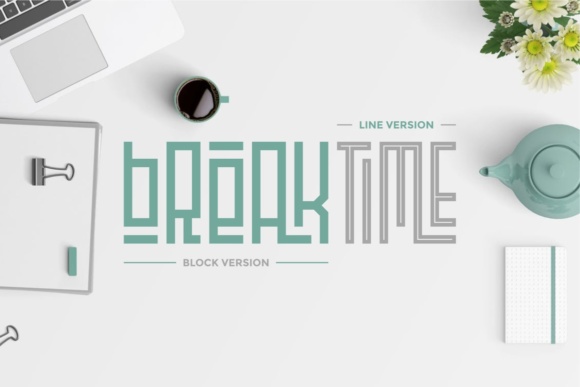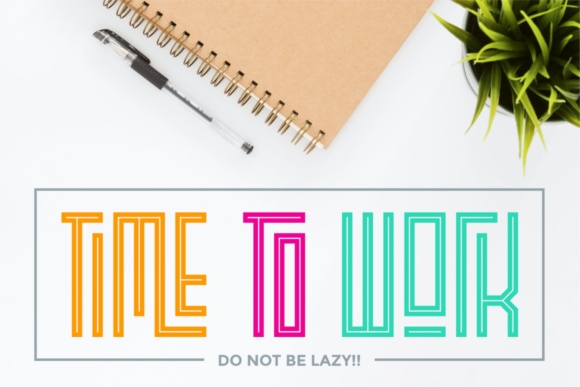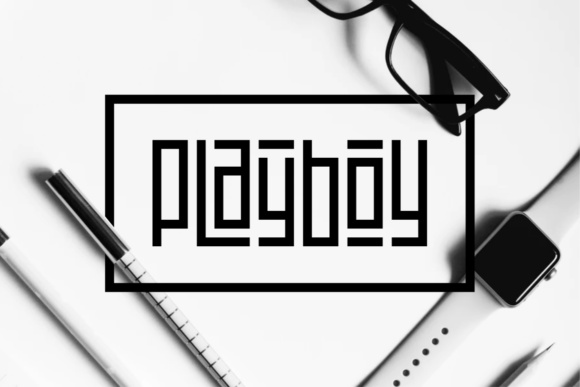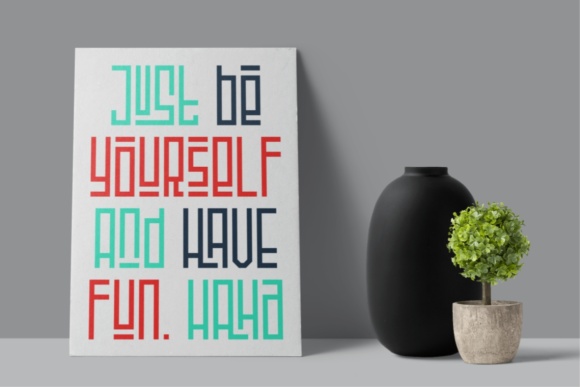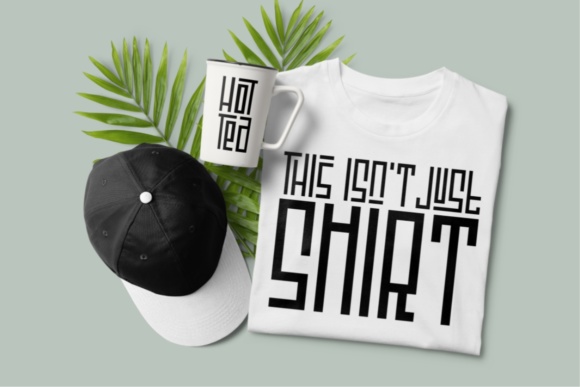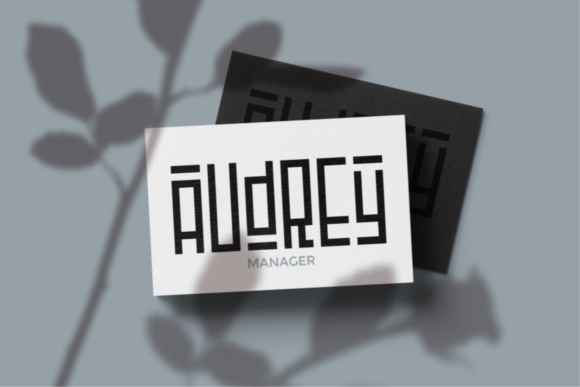
Introduction to Playlines Font
Playlines is a display typeface made with firm lines and angles.
In addition to being unique and modern, there is an element of fun in this typeface, so it is very suitable when combined with different types of typefaces You can play with alternates and ligatures, because there are many variations of character combinations in this typeface, and donโt forget to play with color too .